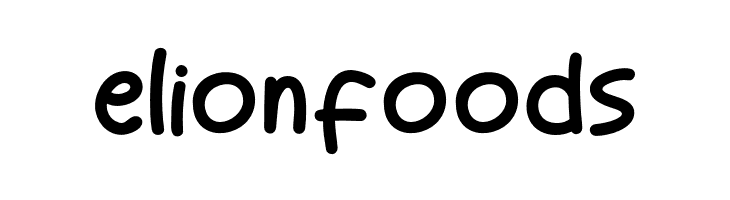
A playful, handwritten font with flowing, interconnected strokes.
A flowing, elegant handwritten font with smooth, continuous strokes.
A playful, hand-drawn font with rounded, informal characters.
Elegant handwritten script font.
A bold, dynamic serif font with sharp, angular elements and high contrast.
Portrait-based decorative dingbat font with high-contrast illustrations.
Illustrative font with fantasy-themed scenes for each character.
Photographic portrait-based decorative display font.
Photographic portrait glyphs in a decorative, high-contrast style.
A display font using portrait images for each character.
A pictorial font using stylized portraits for each character.
Photographic silhouette display font with unique images for each character.
Abstract, optical illusion-inspired decorative font with warped geometric patterns.
A pixelated, retro-style font with bold outlines and a uniform height.
The image does not depict a standard font.
A bold decorative font with intricate graphic elements in each character.
A collection of graphic symbols with bold, intricate designs and a street art aesthetic.
A decorative and abstract font with intricate patterns and bold contrasts.
A display font made up of bold, graphic street art illustrations.
A bold, condensed display font with a geometric, street-art aesthetic.
A decorative pattern of stylized faces with high contrast.
A decorative, abstract font with inkblot-like patterns and high contrast.
A decorative display font with intricate urban art designs within each letter.
A bold, artistic font with intricate, abstract designs and embedded faces.
A graphic, face-based decorative font with strong visual impact.
A decorative and artistic typeface with intricate designs and patterns.
( Fonts by bob istheowl http://luc.devroye.org/bobistheowl.html )
Highly detailed illustrative font based on Alice in Wonderland scenes.
( Fonts by bob istheowl http://luc.devroye.org/bobistheowl.html )
The image does not depict a valid font.
Ornamental font made of complex, patterned glyphs.
Bold, graphic display font inspired by street art and propaganda.
Graphic-heavy, rock-inspired decorative font with illustrated characters.